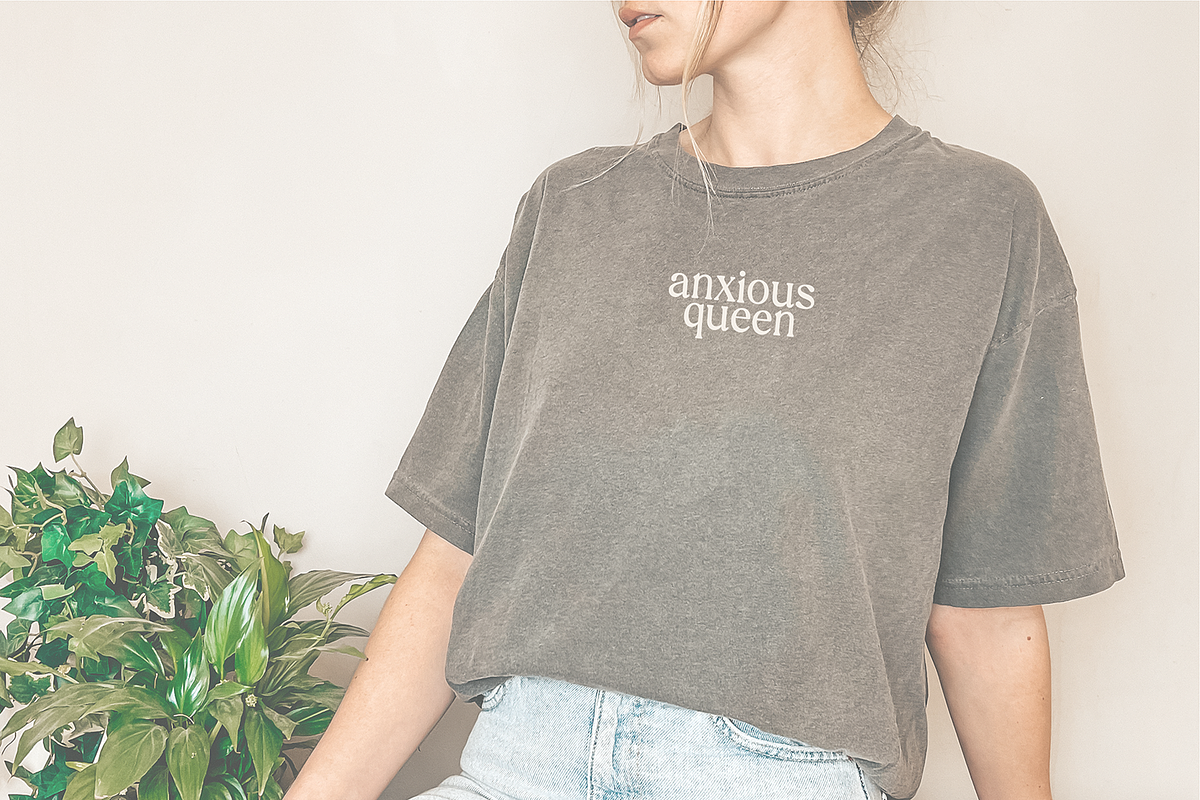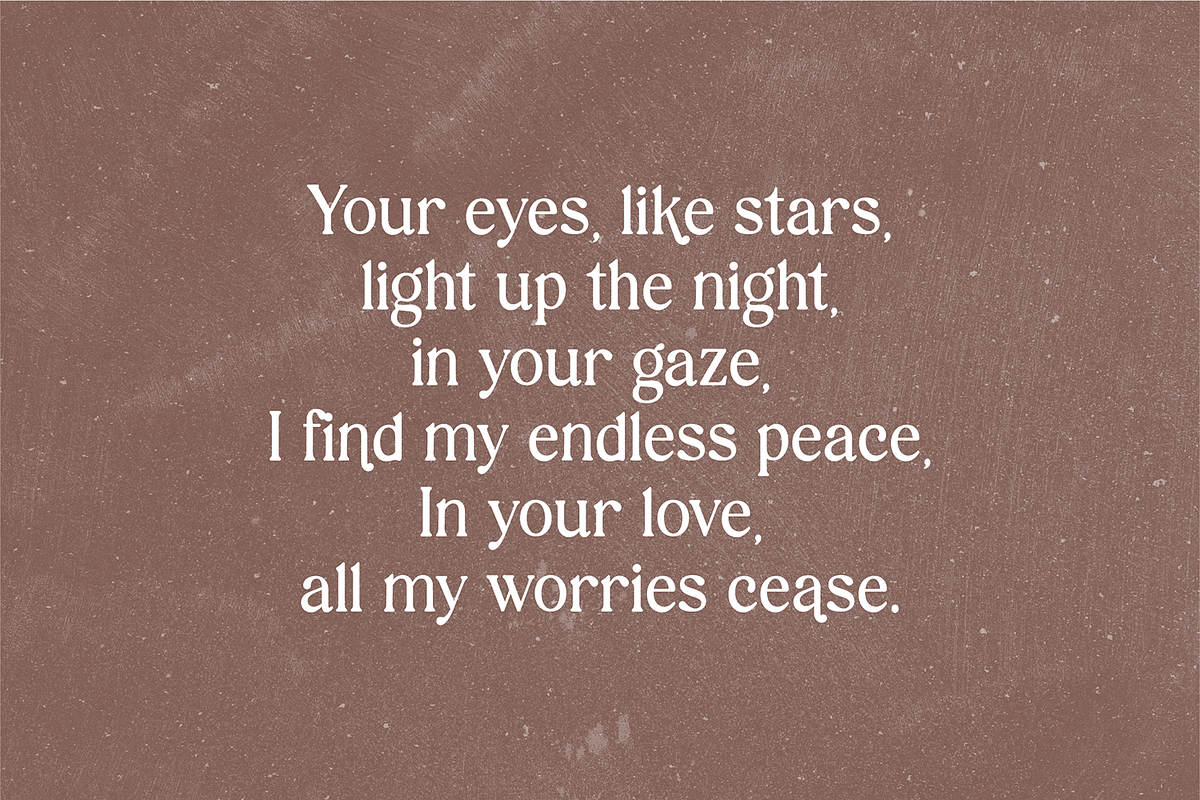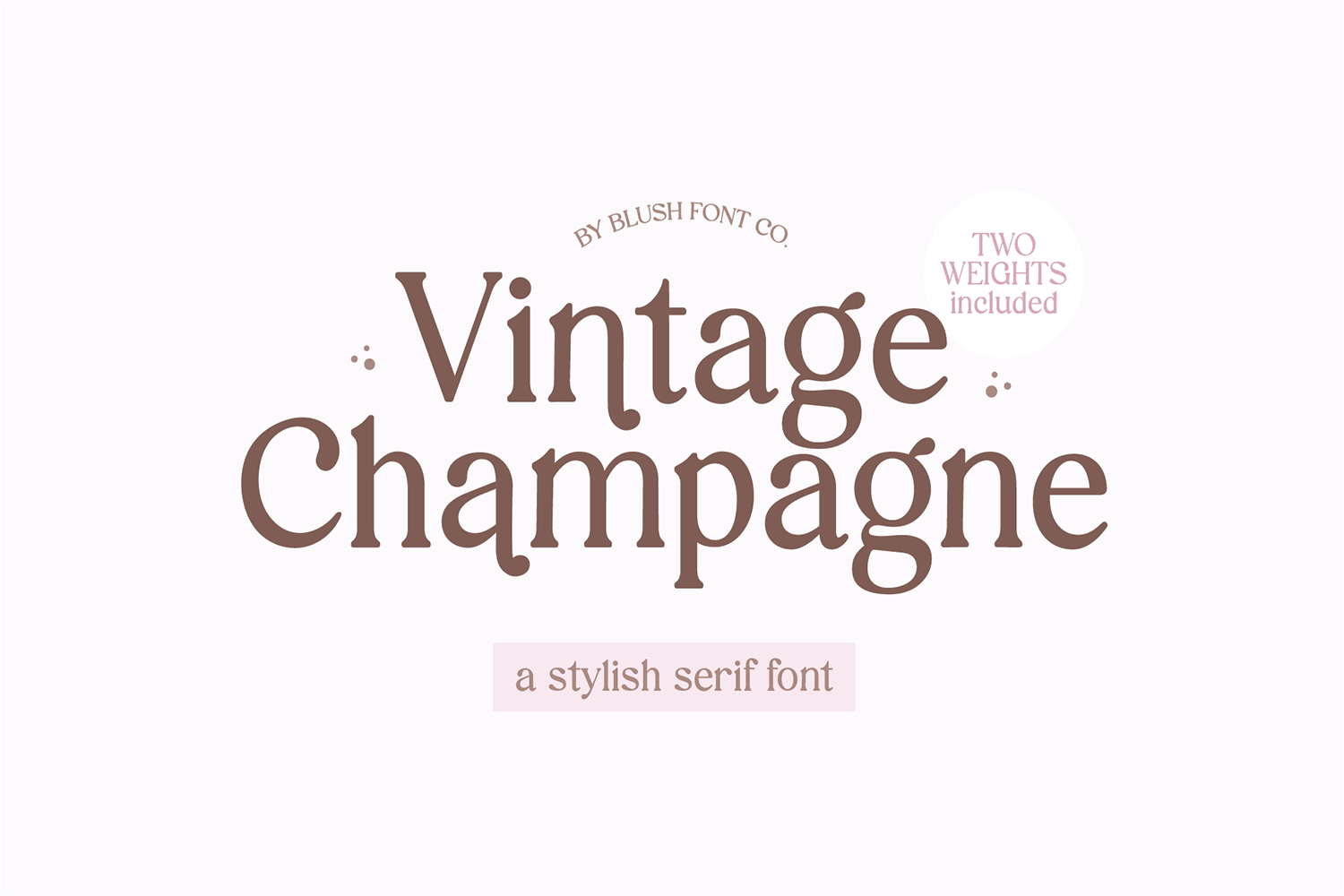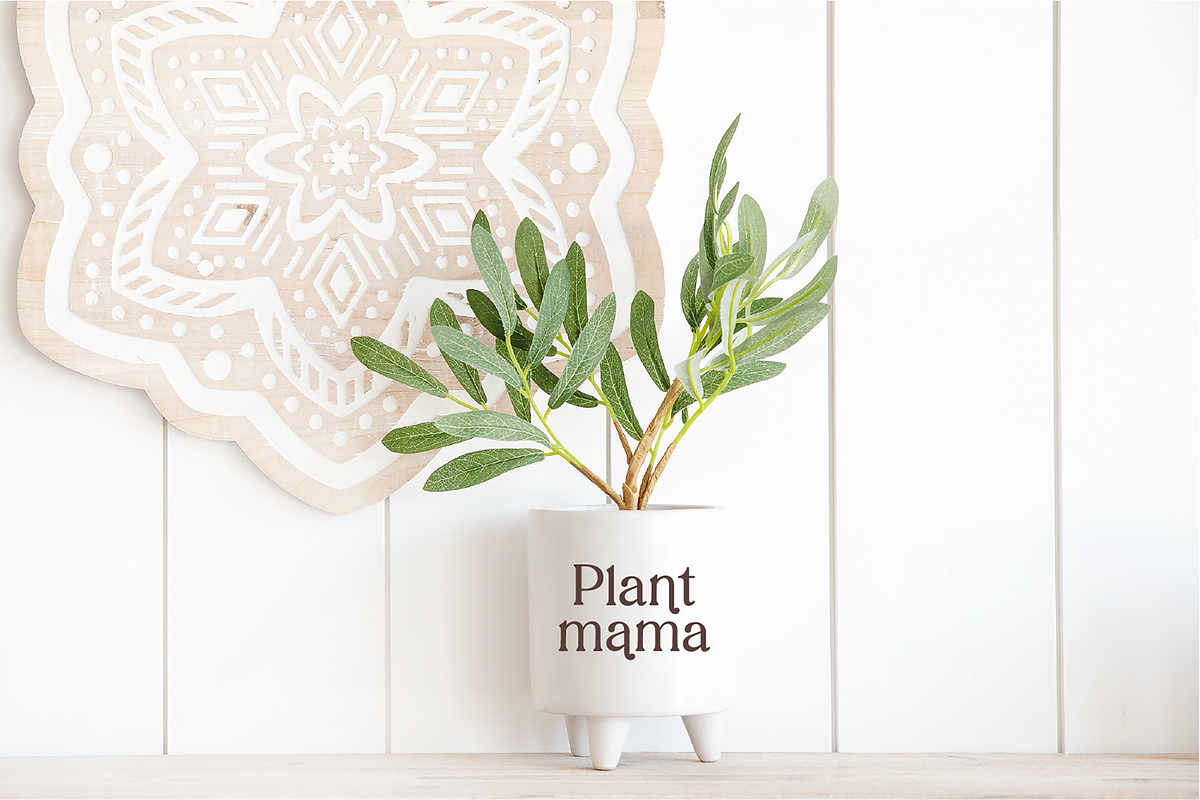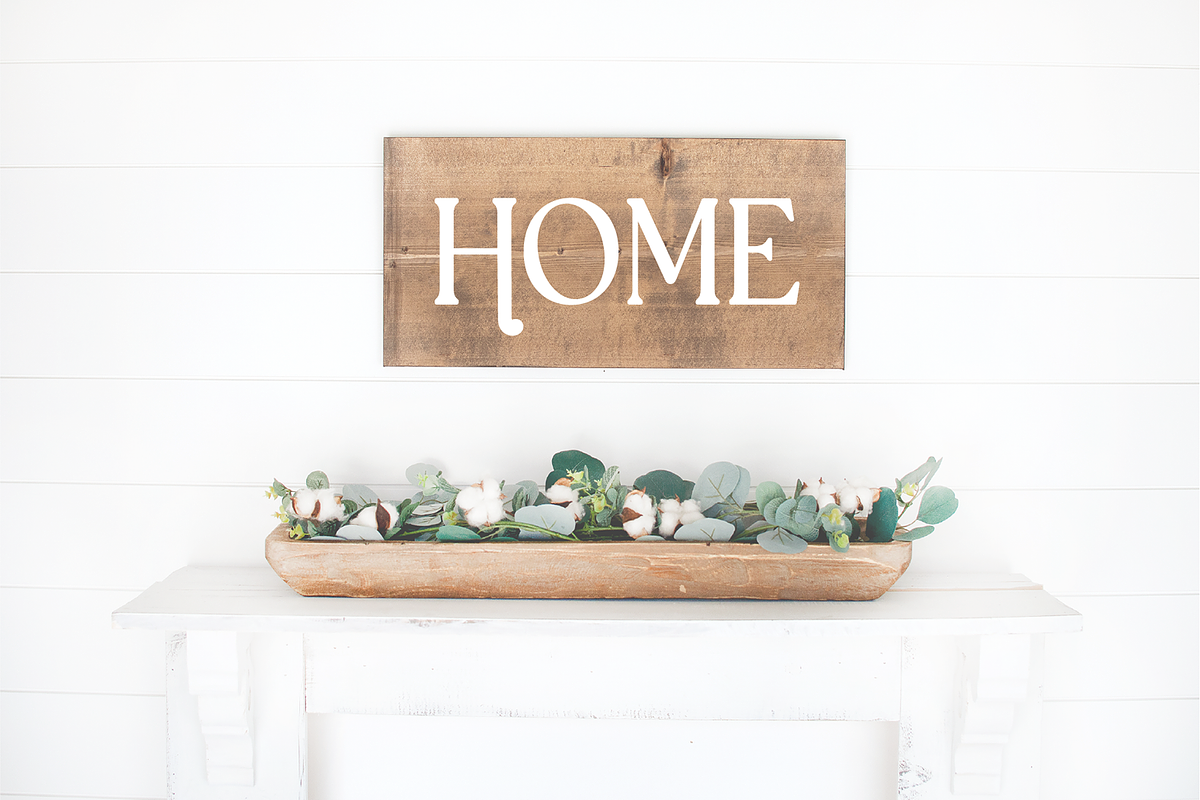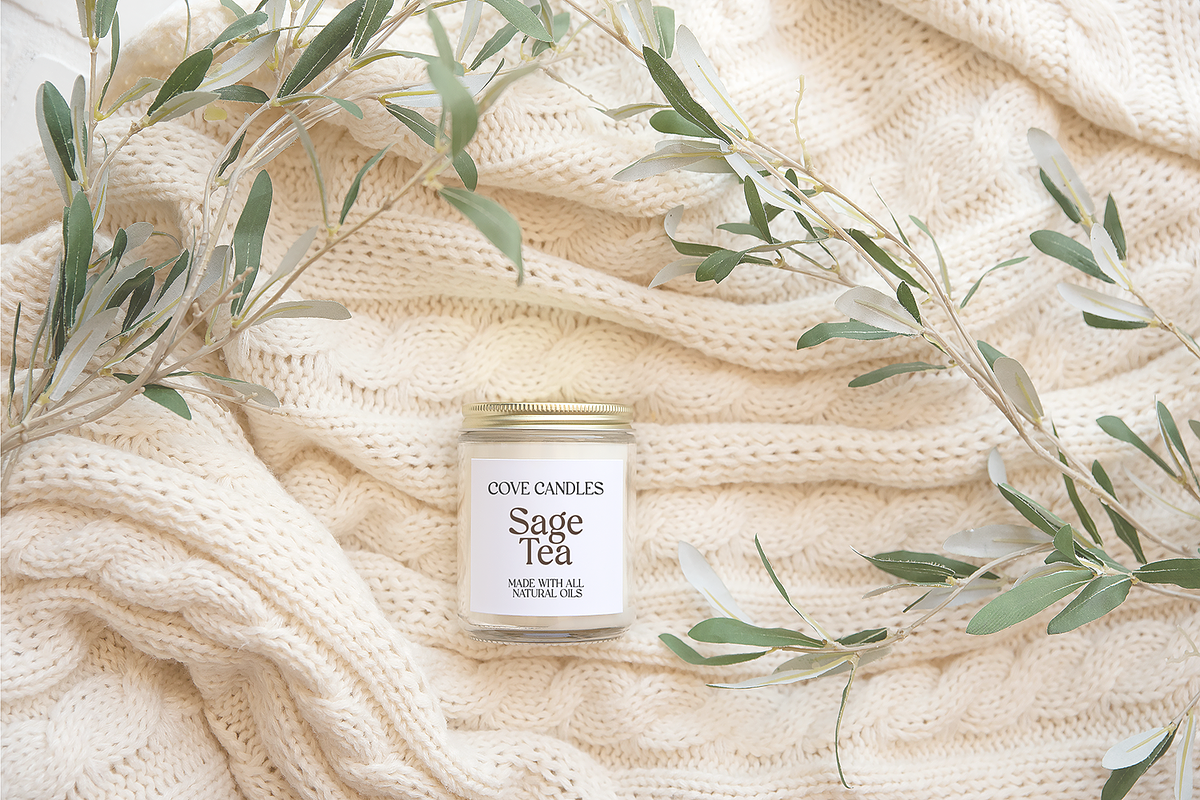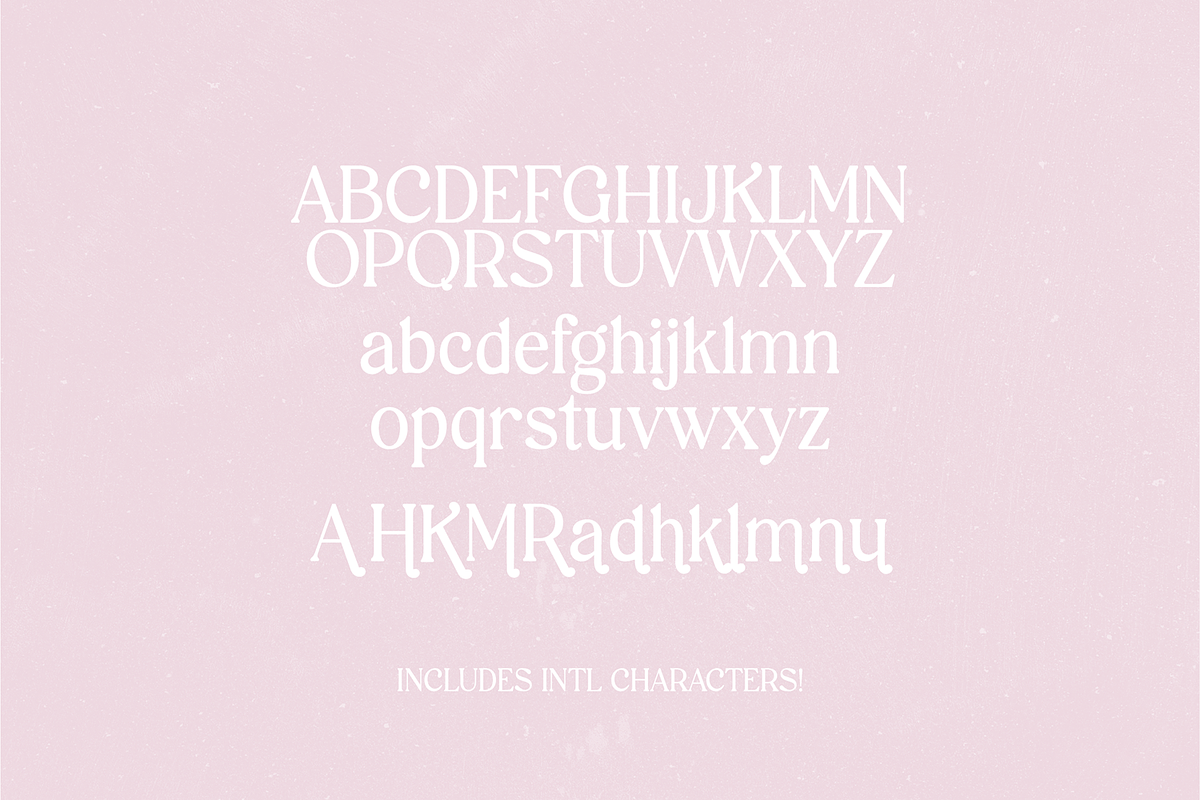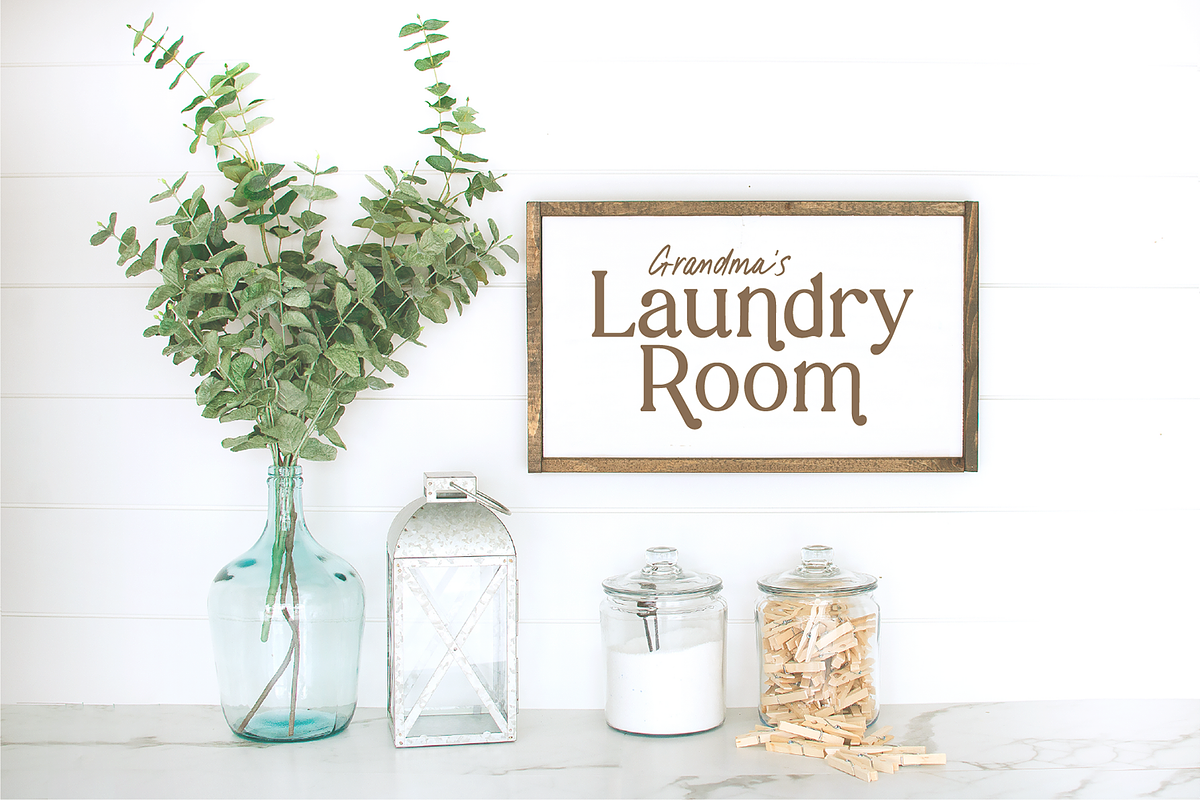
VINTAGE CHAMPAGNE Modern Serif Font
"VINTAGE CHAMPAGNE" a modern stylish serif display font.
2 versions included! Regular and Bold.
Multilingual support in the reg version.
This font is a bold display font that is perfect for stylish projects. Use it for branding, crafts for decor, invitations, and more! Upper and lowercase glyphs, numbers, and punctuation marks.